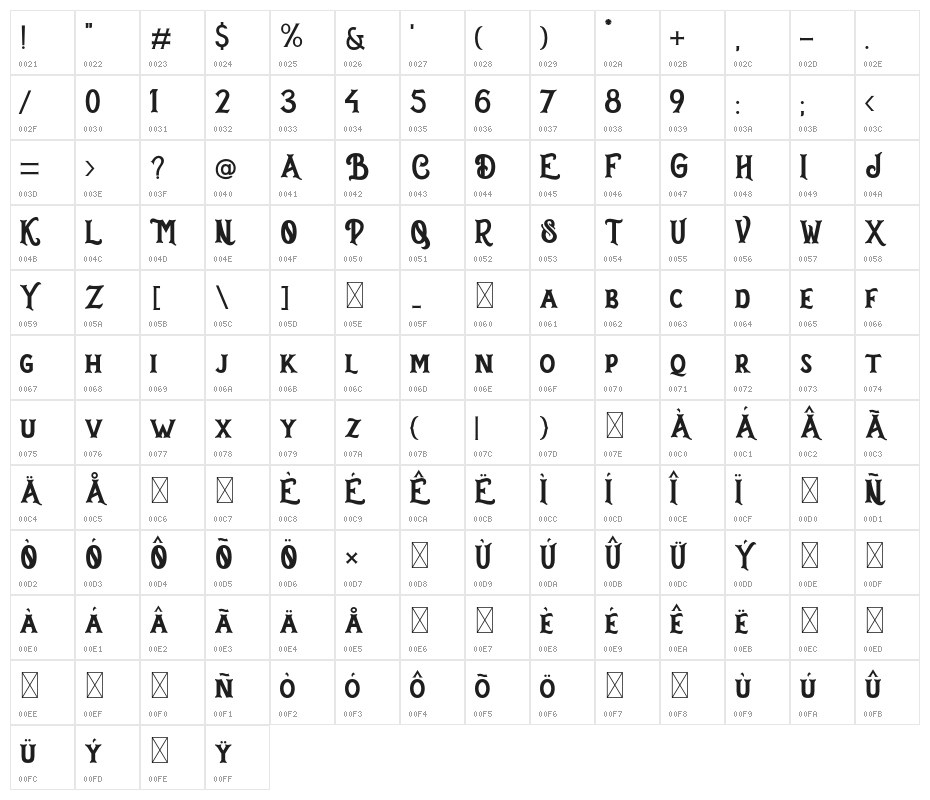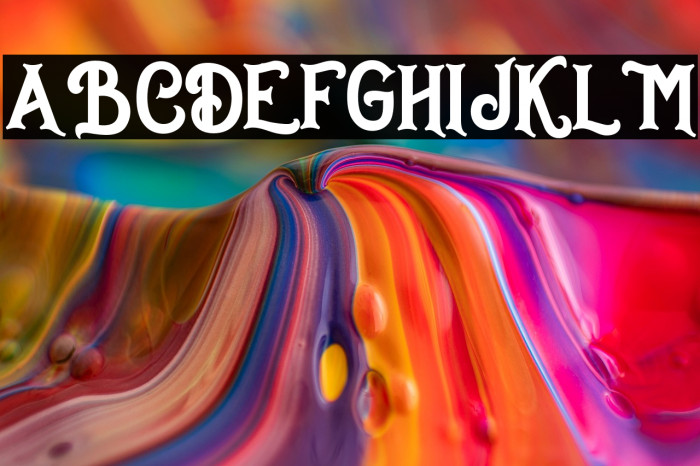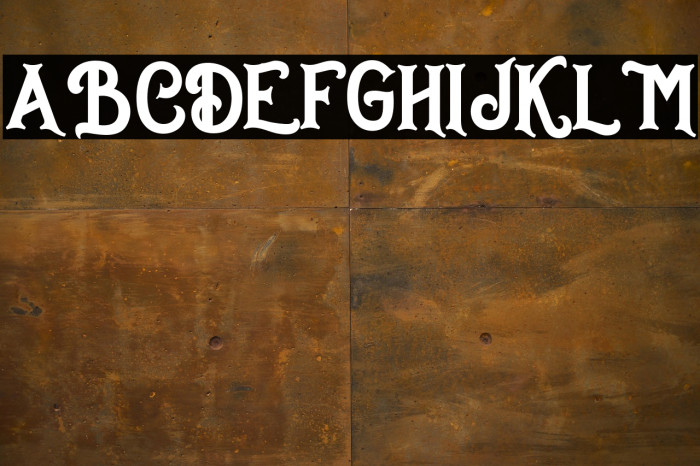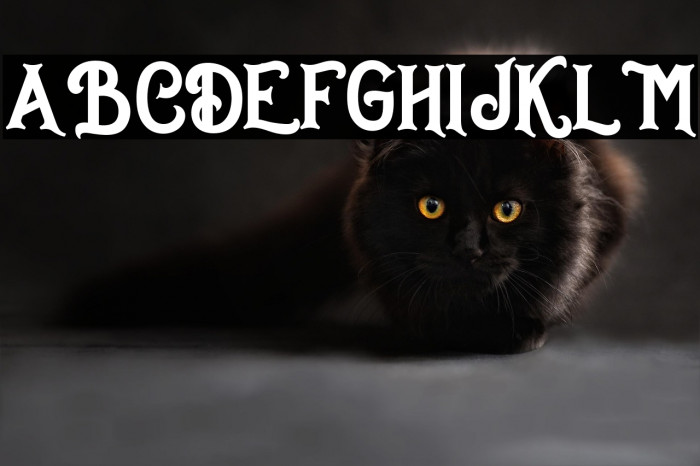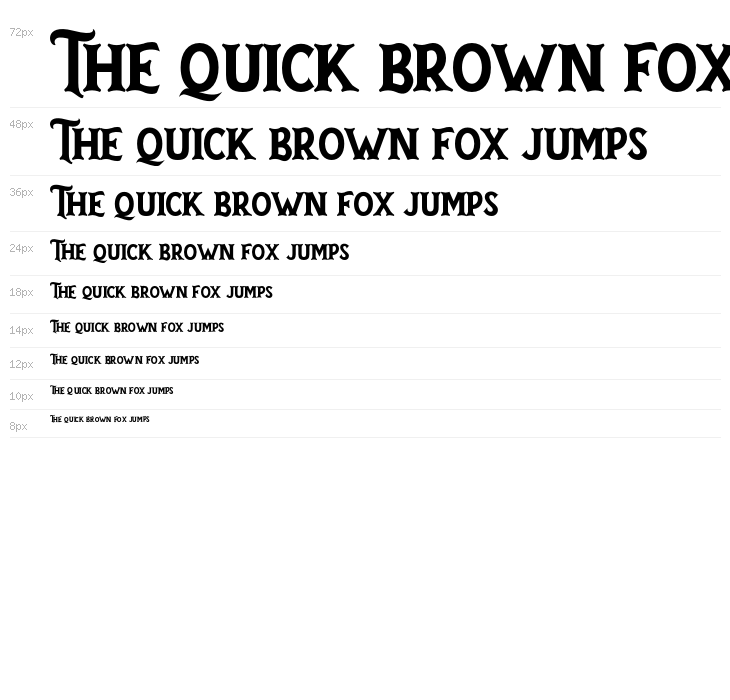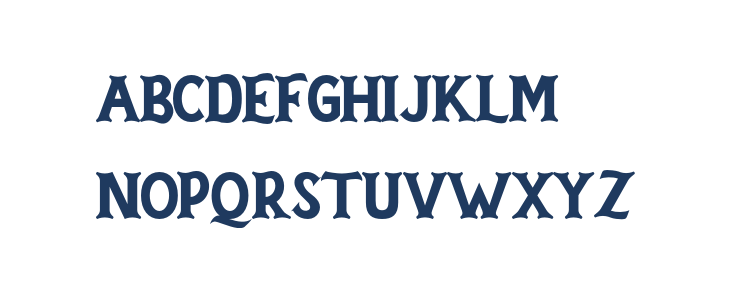
Dakota Regular Font
Dakota Regular Description
This font features a bold and decorative style with a strong presence. The characters are designed with a unique flair, incorporating elements of both traditional and modern aesthetics. The uppercase letters are particularly striking, with intricate curves and sharp edges that create a sense of movement and dynamism. The lowercase letters maintain this decorative theme, offering a consistent look across the typeface. Numbers and special characters are equally bold, ensuring readability while maintaining the overall style. This font is ideal for projects that require a strong visual impact.